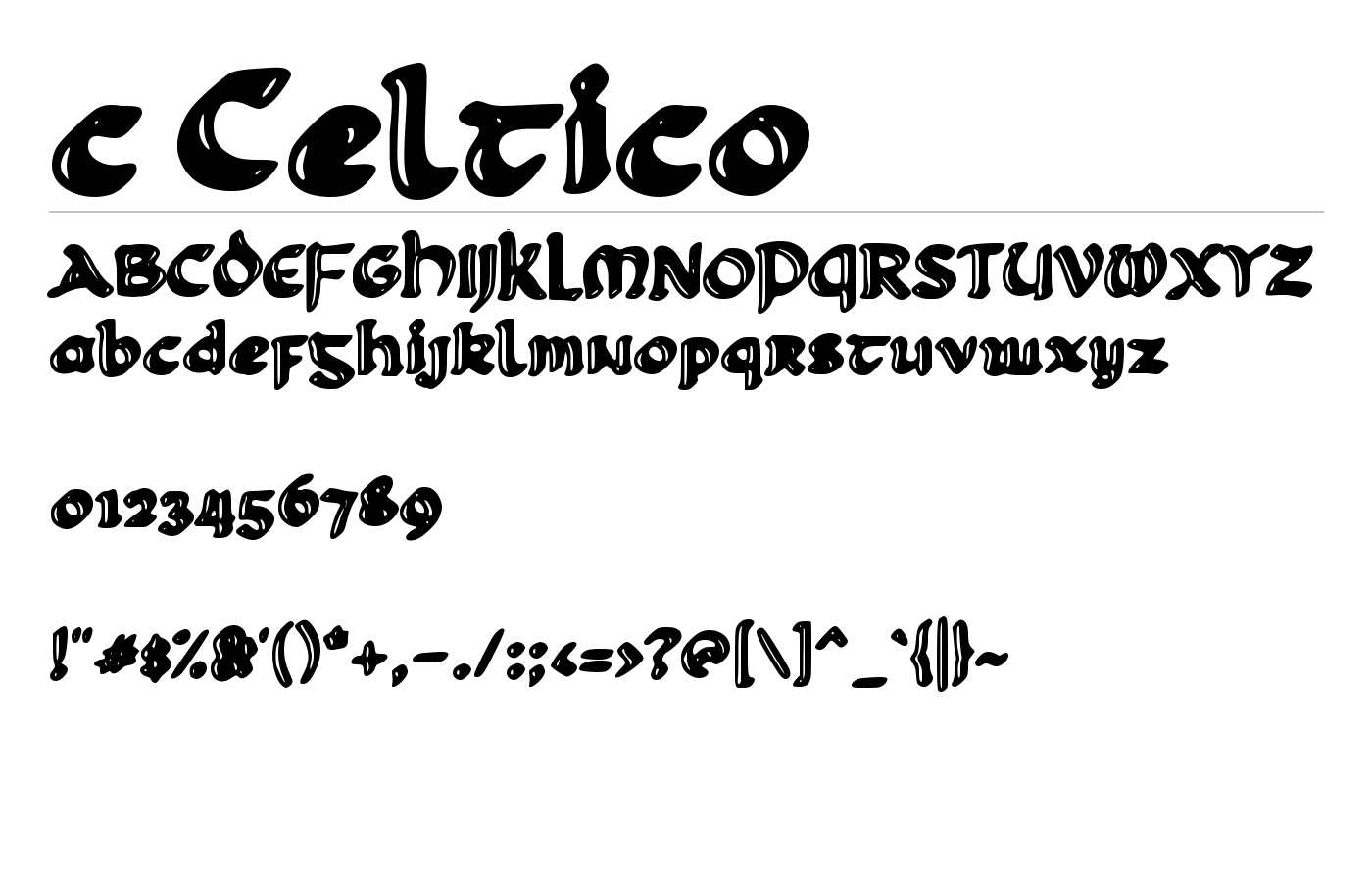
Celtico is a bold, decorative font with a playful and organic feel, featuring irregular, rounded letterforms that evoke a hand-crafted or stone-carved aesthetic. Its unique shapes and lively curves make it ideal for creative projects, logos, and headlines that seek a distinctive, whimsical, and slightly rustic character. This font works well where a strong visual impact and artistic expression are desired.
c Celtico Font
About c Celtico Font
| Font family | c Celtico Font |